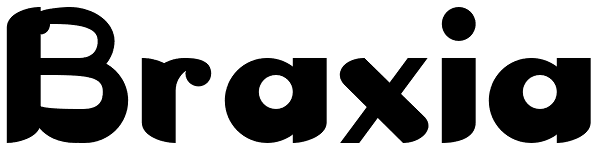
Braxia
Braxia is a pure and joyful piece of Art Deco Fun. It is a new face that is overflowing with the character of 1930s advertising, lively and yet with impact all at once, its idea for theater handbills and posters, parties or anything else where you...
Braxia